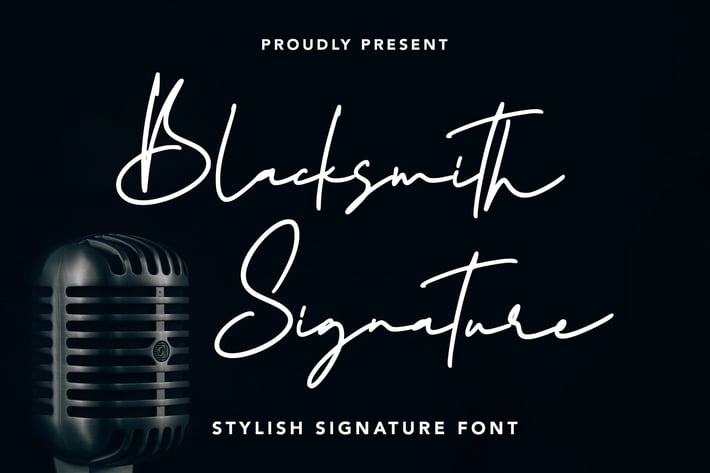
Blacksmith Signature - Stylish Signature Font
Blacksmith Signature - Stylish Signature Font contains a lowercase, uppercase, symbol, and also supports multi-language. There’s a lot of ligature in this font. Blacksmith Signature - Stylish Signature Font also comes with ligatures, stylistic alternates and many more.
this font suitable for fashion, branding, catalog and other design that you want.